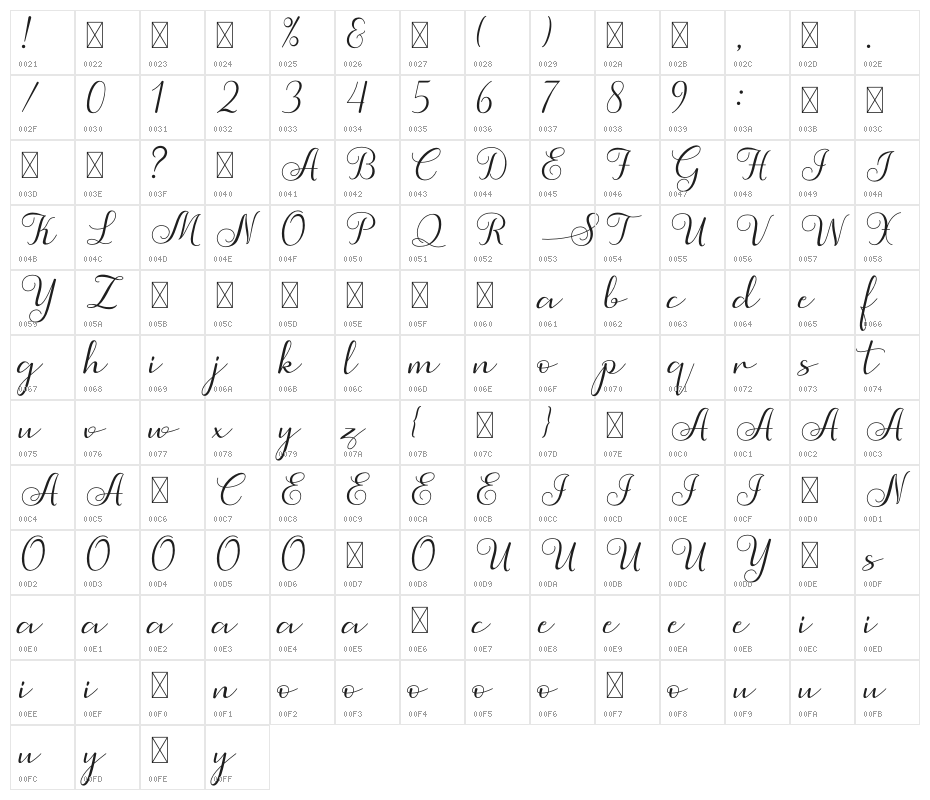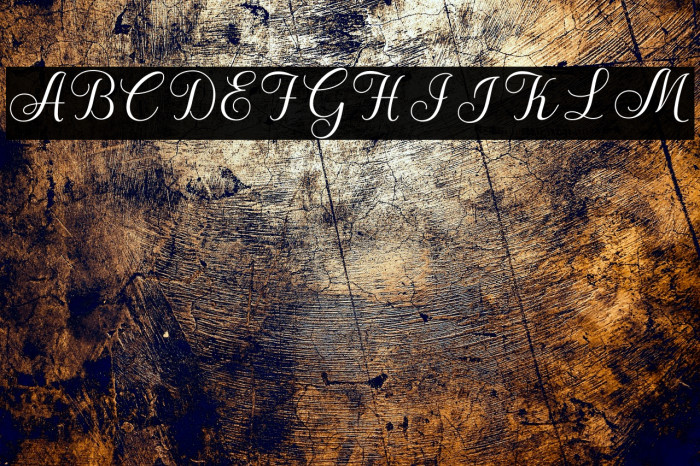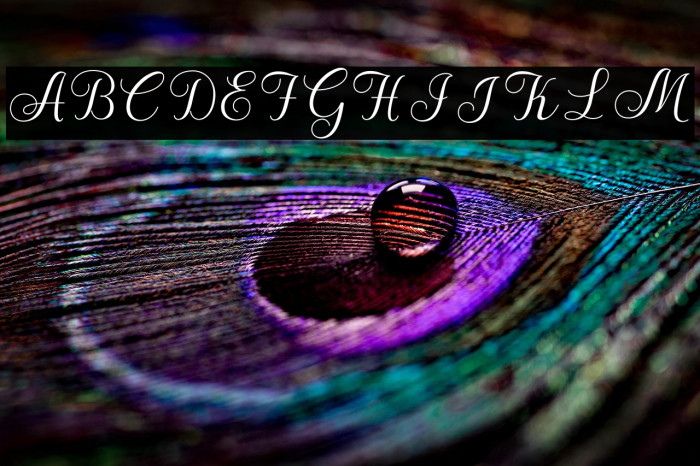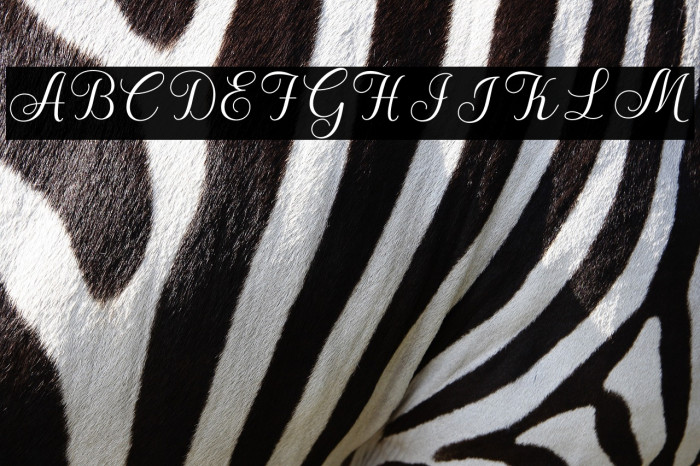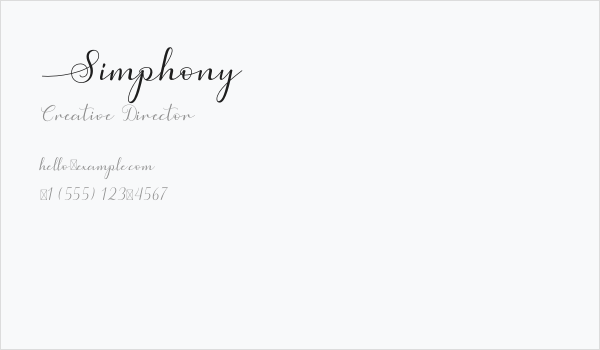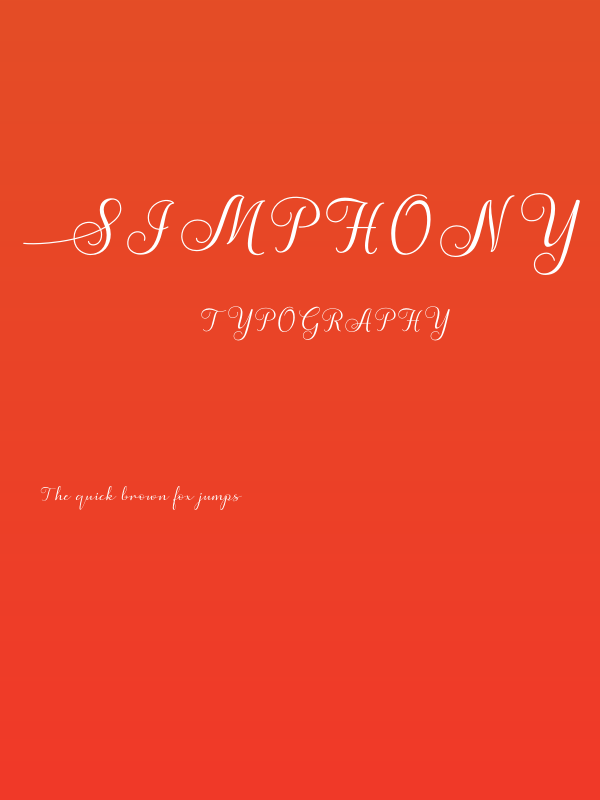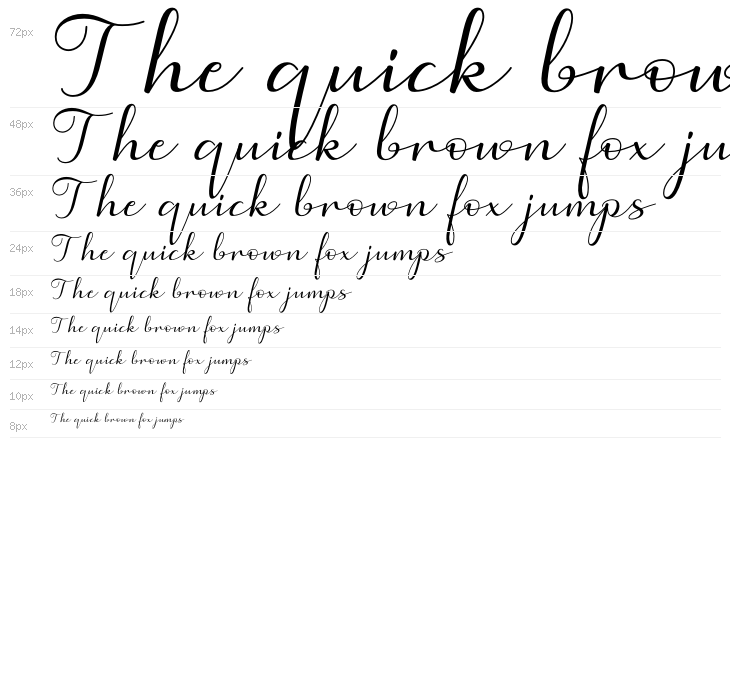
Simphony Font
Simphony Description
This elegant script font features flowing, cursive letterforms with a sophisticated and graceful appearance. The uppercase letters are adorned with delicate loops and flourishes, giving them a decorative touch, while the lowercase letters maintain a smooth and connected style. The numerals are sleek and slightly slanted, complementing the overall cursive theme. Special characters are designed with similar elegance, ensuring consistency throughout. The font's thin strokes and high contrast between thick and thin lines add to its refined and stylish look, making it suitable for formal and decorative applications.
| Overall Style | Elegant, Decorative |
| Use Case | Headlines, Invitations, Logos |
| Proposed Projects | Ideal for wedding invitations, elegant branding, greeting cards, and decorative headings. |